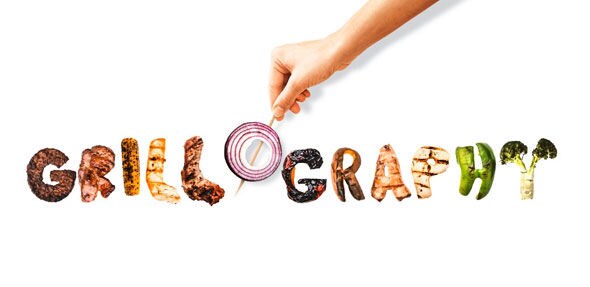
An Oslo-based creative industry created a unique typeface called ‘Grillography.’ The agency, called ‘Anti,’ created the typography entirely out of supermarket produce. The project was made in collaboration with a Scandinavian supermarket chain called Rimi.
The supermarket wanted to find a fun way to promote themselves this summer season, so it was fitting to use summer’s most popular foods that involve using the barbecue. Barbecuing is such an important part of the allure of summer and the season’s succulent cuisine.
Using grilled meat, fish and vegetables, Anti created various outdoor ads. According to the agency, all the letters were created by hand with no help from Photoshop. They were either cut or formed into a desired letter using its natural shape.
Grilled Food Typography
Anti Agency Created a Unique Typeface Inspired by Produce